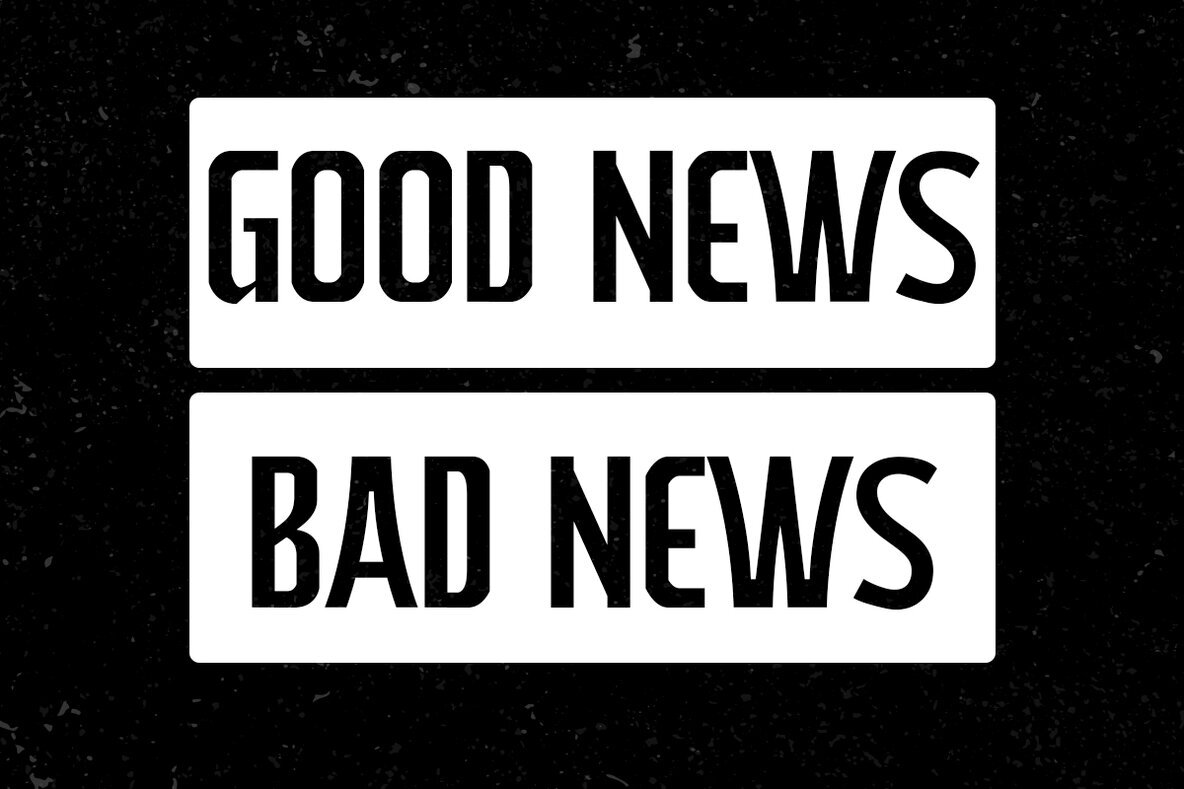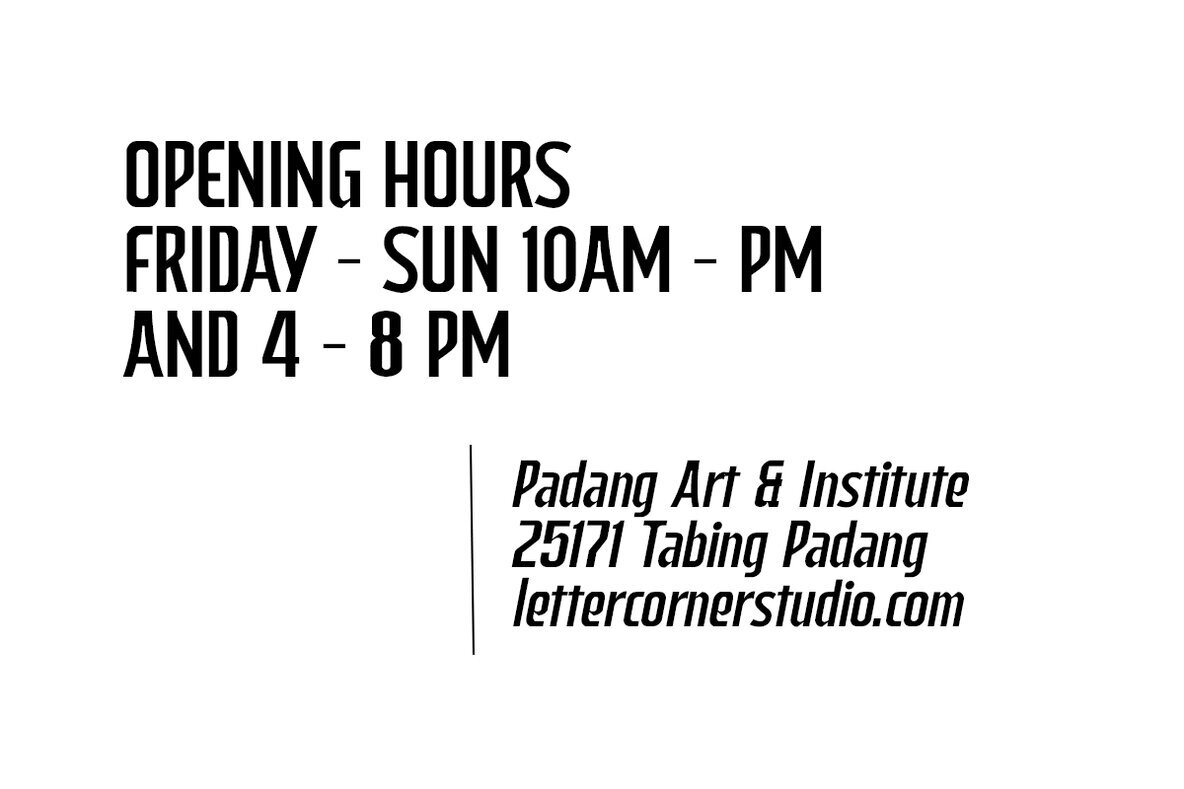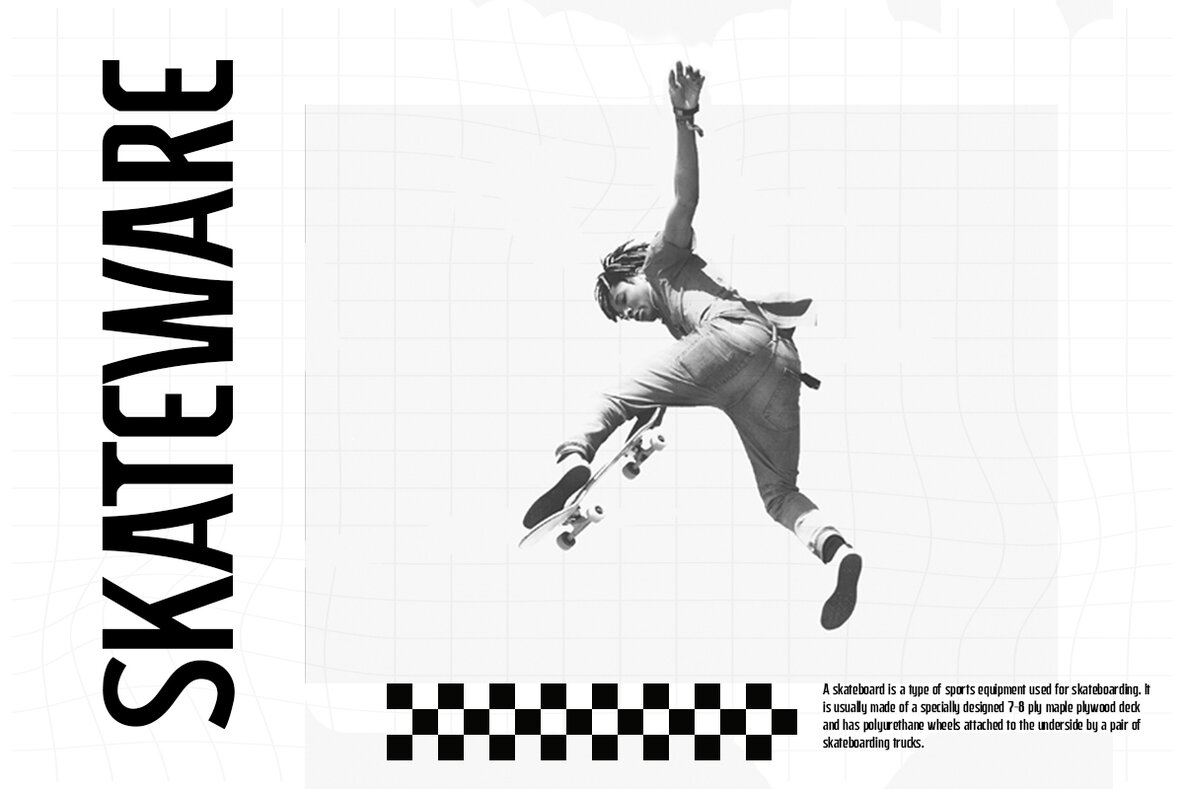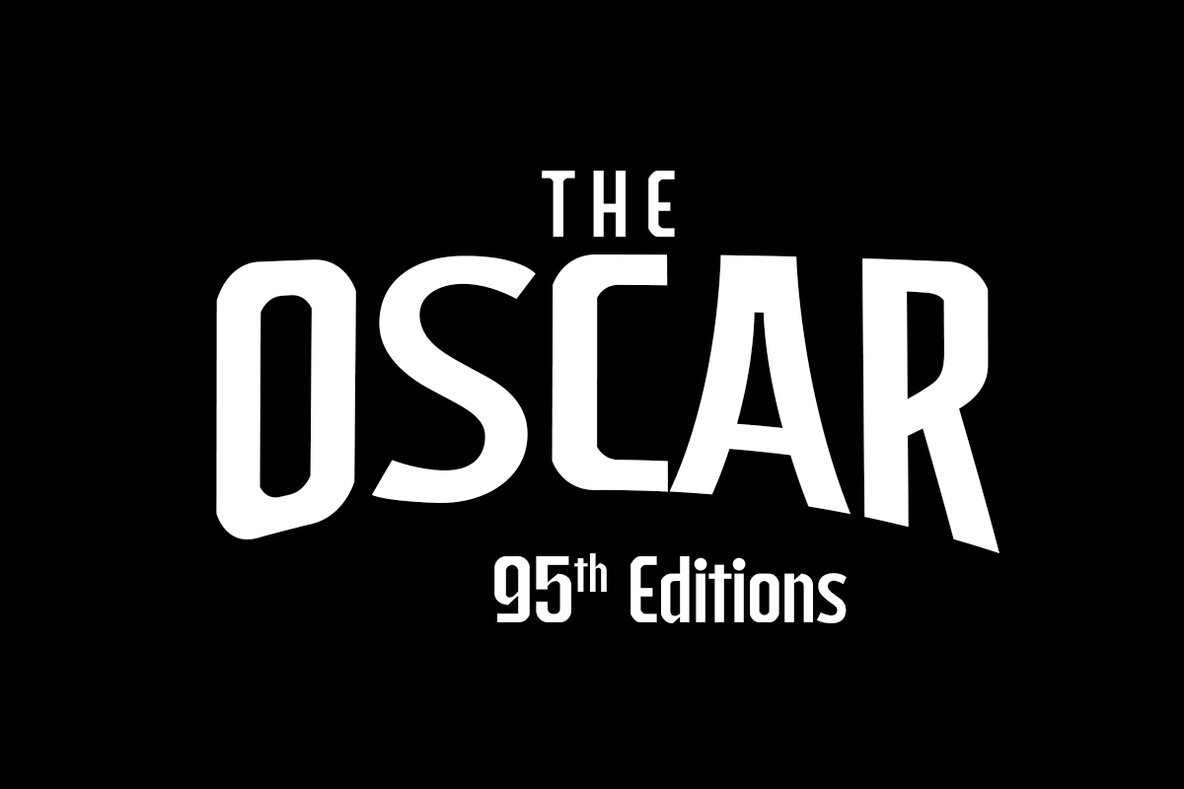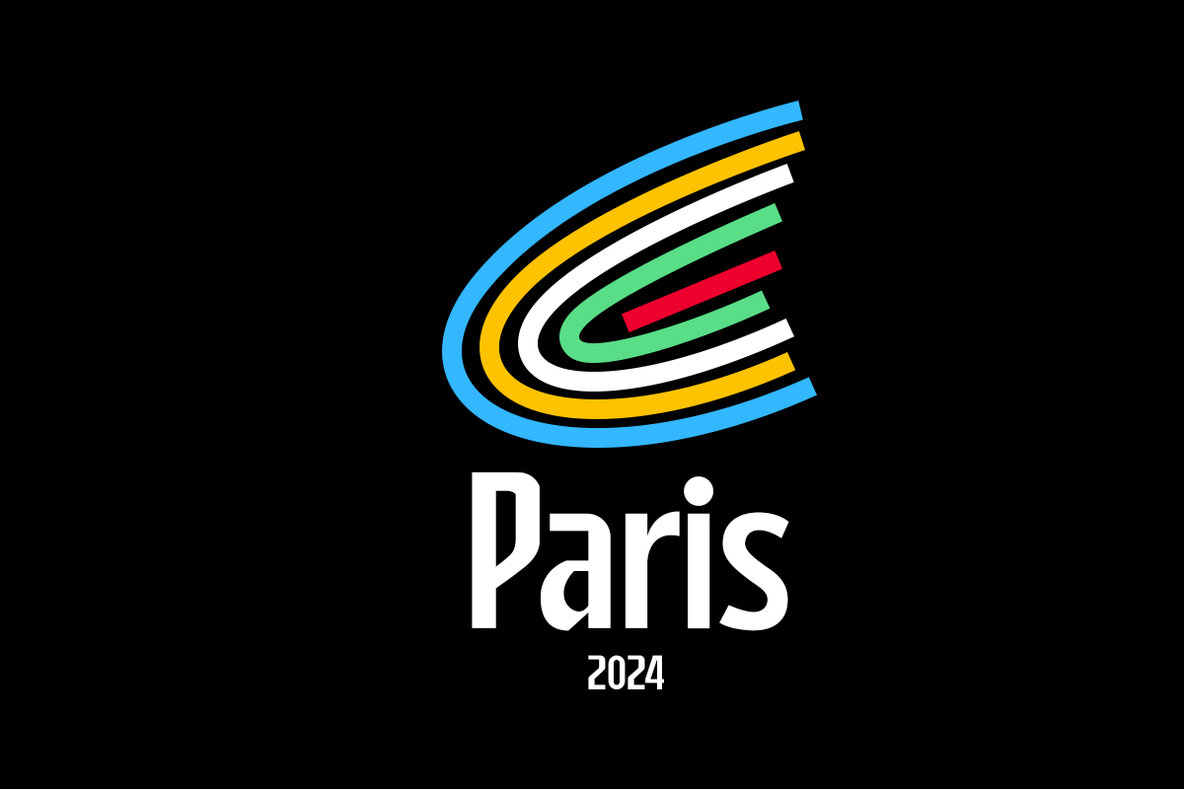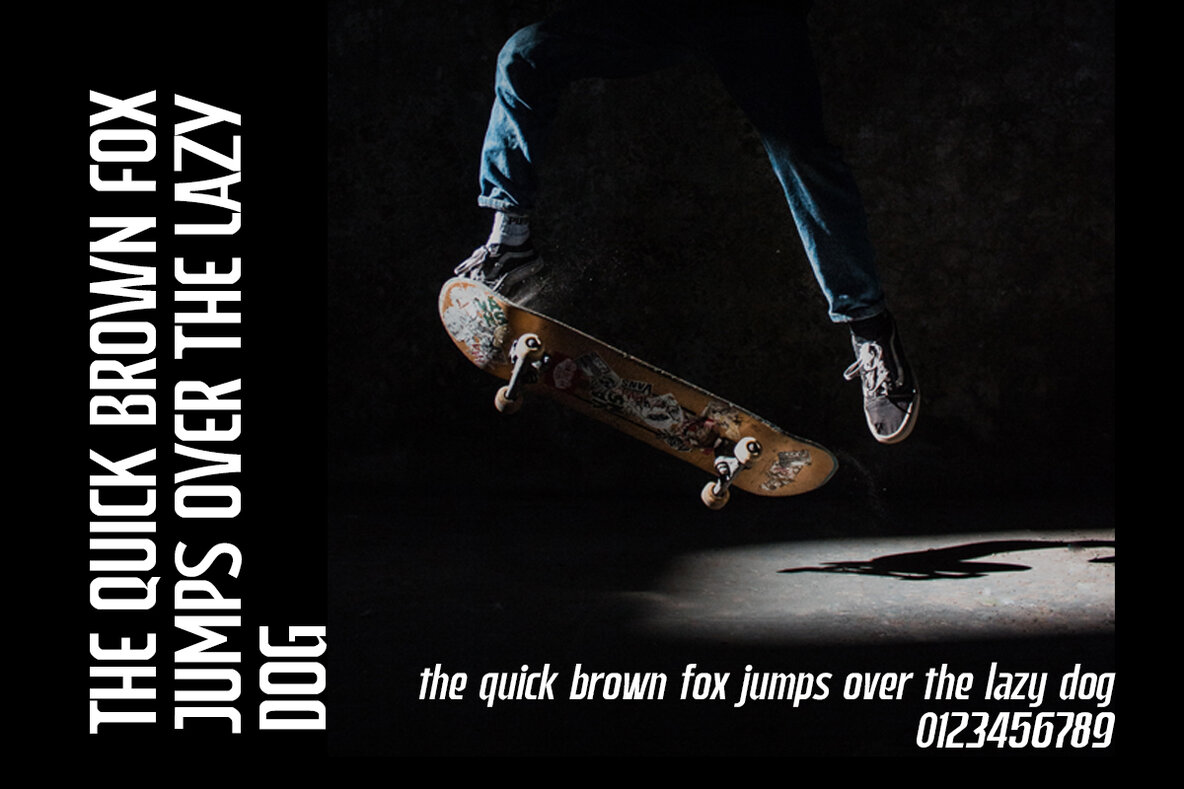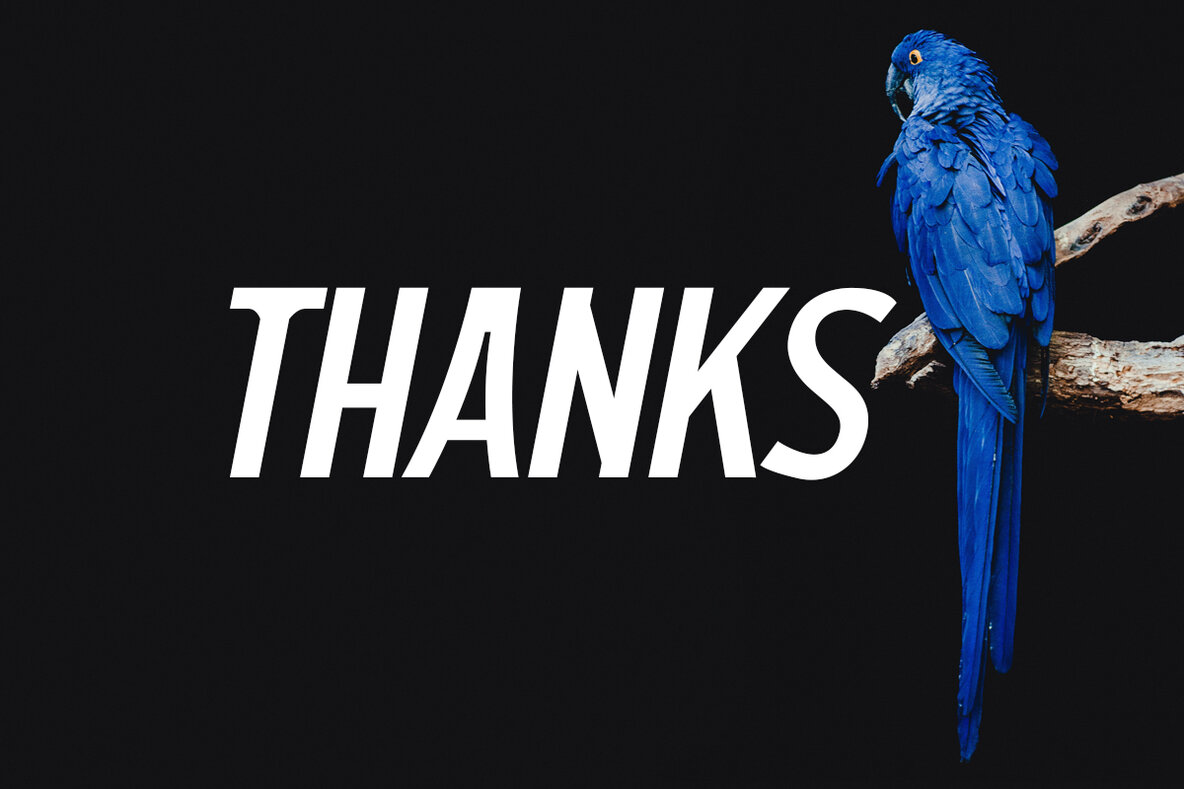
Qubicles Font
Qubicles a brand new display font. It’s quirky letterforms make this font perfect for branding, headlines, logotype, stickers, editorial design, and more. Features: